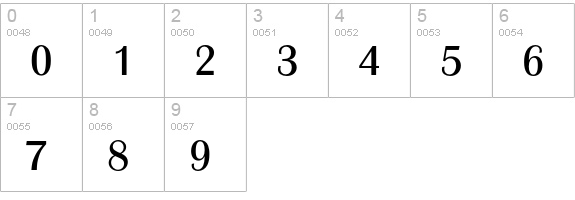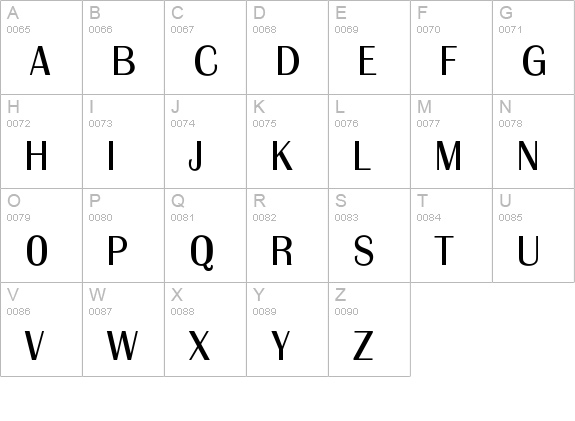
Grenoble-Regular is the standard, neutral variant in the Grenoble typeface family \xE2\x80\x94 well suited to general body text, paragraphs, and standard typographic work.
Grenoble-Regular is a modern and versatile font that exudes elegance and sophistication. With its clean lines and balanced proportions, this typeface is perfect for a wide range of design projects, from branding to editorial layouts. The gentle curves and sharp edges of Grenoble-Regular create a harmonious and polished look that will elevate any design. What sets Grenoble-Regular apart is not only its impeccable design, but also the fact that it is available for free download at FontsMarket.com. This means that you can easily access this high-quality font and use it in your projects without any cost. Whether you are a professional designer or a hobbyist looking to add a touch of class to your creations, Grenoble-Regular is a fantastic choice that won't break the bank. Download Grenoble-Regular now at FontsMarket.com and bring a touch of sophistication to your designs with this stylish and versatile font.